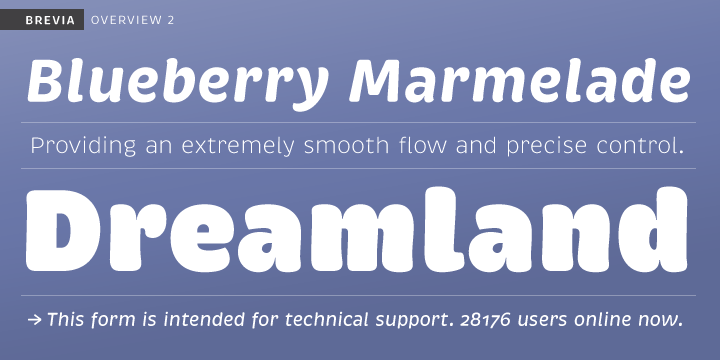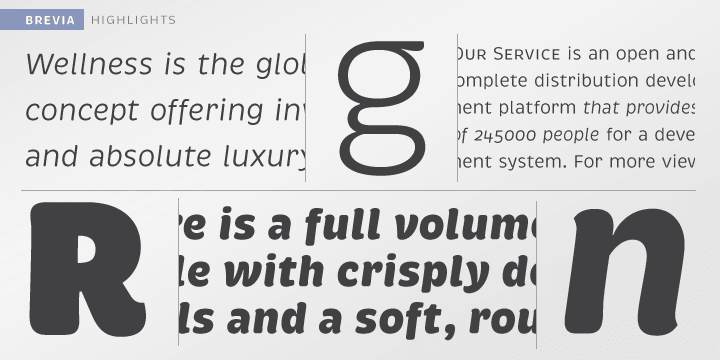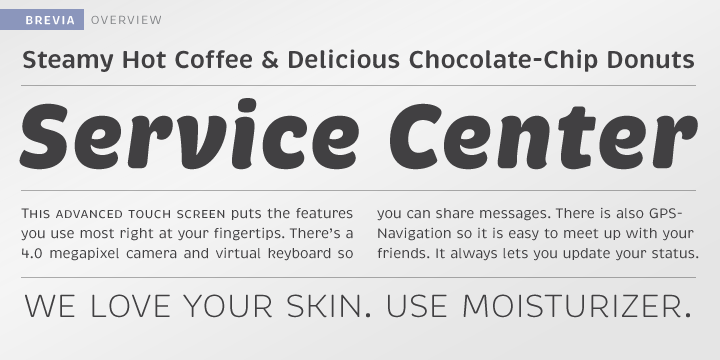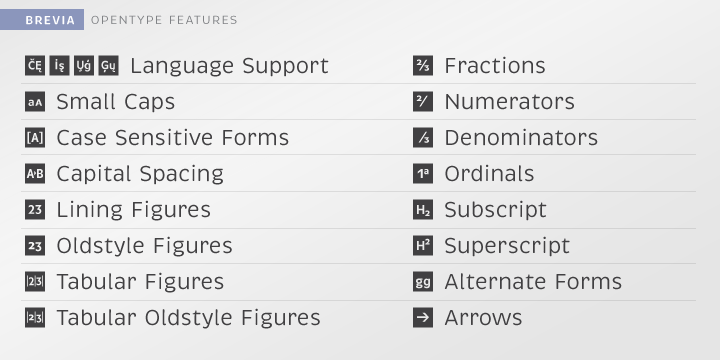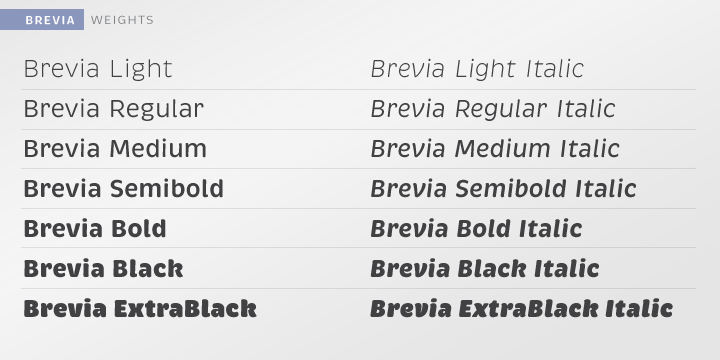
Brevia is a sans serif font family. This typeface has fourteen styles and was published by HVD Fonts.
Type designer Hannes von Döhren created Brevia, a soft sans serif type family consisting of seven weights plus matching italics. The fonts have a hint of a brushed feeling and come across casual and friendly. Nevertheless Brevia’s architecture is straight, making it perfect for longer texts. Because of its big x-height, it also performs nicely in very small sizes. Brevia’s heavier weights are slightly more curved and have an eye-catching appearance. They unfold their strength especially in bigger sizes. This contemporary type family is intended to be used in applications like: Cosmetics, Service, Food and Advertising – basically everywhere where a pleasant feeling should be conveyed.
Brevia is equipped for highly professional use.
The OpenType fonts have an extended character set to support Central and Eastern European as well as Western European languages. Each font includes small caps, fractions, old style-, lining-, tabular numbers, scientific superior/inferior figures and a set of arrows.